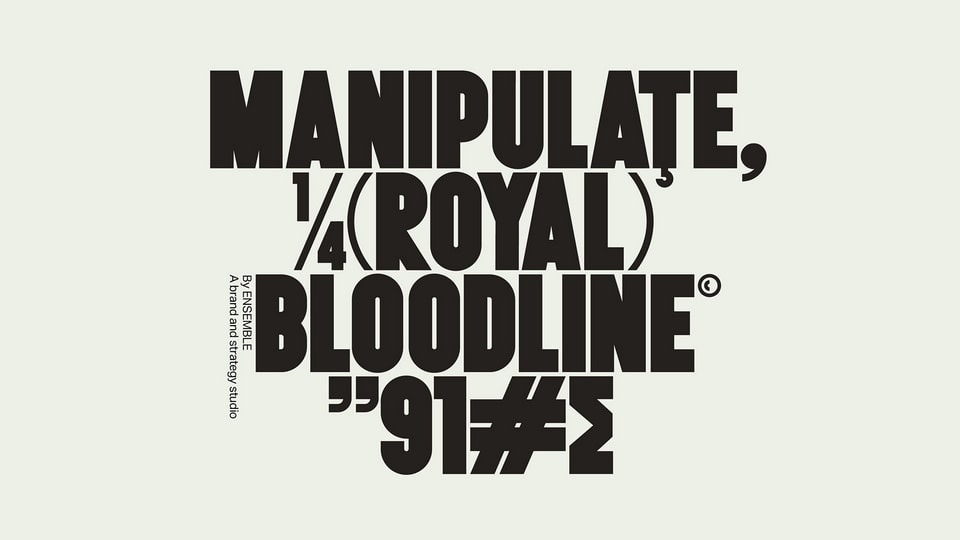
Download Tombstone Blues font, a condensed headline typeface (with a little bit of intentional naivety) in an extensive character set and alternative glyphs. Tombstone Blues font is great for impact headlines and eye-catching posters.
Designer: Ensemble Design Studio